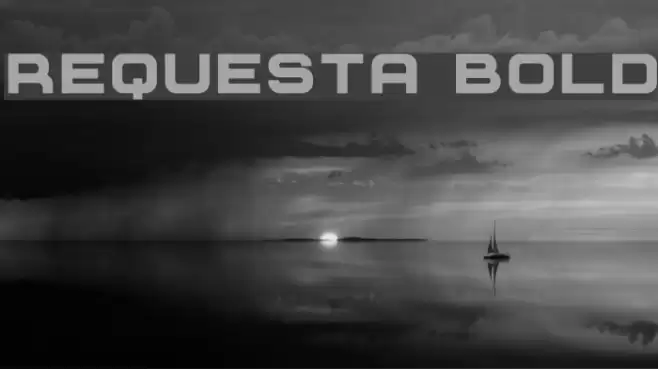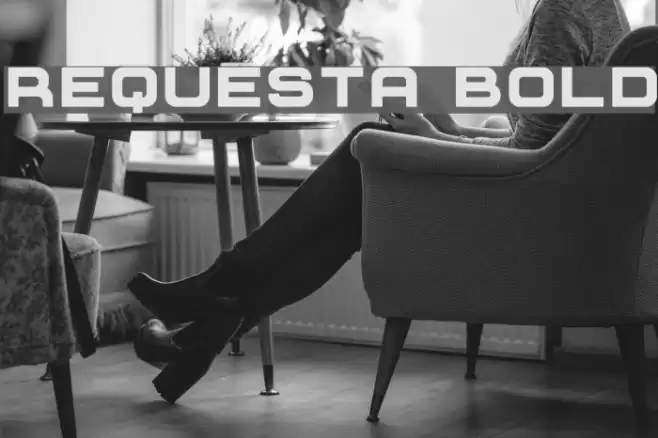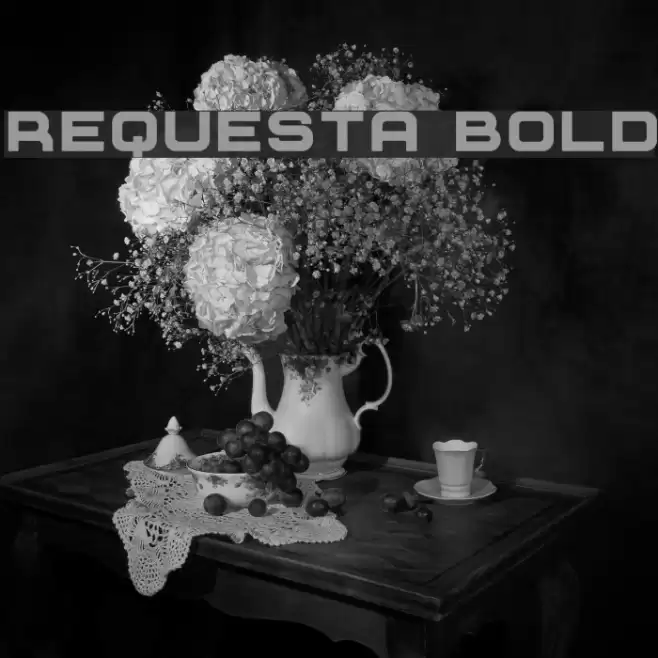
Requesta Bold Font
Requesta Bold Description
This font exhibits a bold and modern aesthetic with a geometric structure. The characters are uniformly thick, providing a strong and assertive presence. The uppercase letters are well-defined with sharp angles, while the lowercase letters maintain a consistent style. The numerals are clear and easy to read, matching the boldness of the alphabet. Special characters are distinct and integrate seamlessly with the overall design. The font's uniformity and boldness make it suitable for impactful visual statements.
A bold, geometric font with a modern and assertive style from Uncategorized fonts.